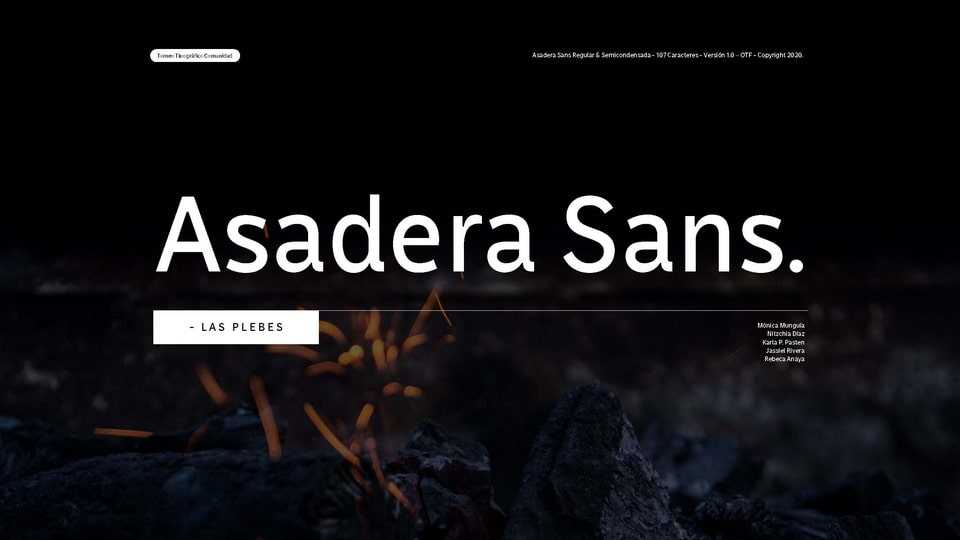
Download Asadera font, a neo-grotesque typeface that features a low contrast, which is ideal to be used for UI and web projects. Asadera is just the perfect fit for body copy.
Designer: Torneo Tipográfico